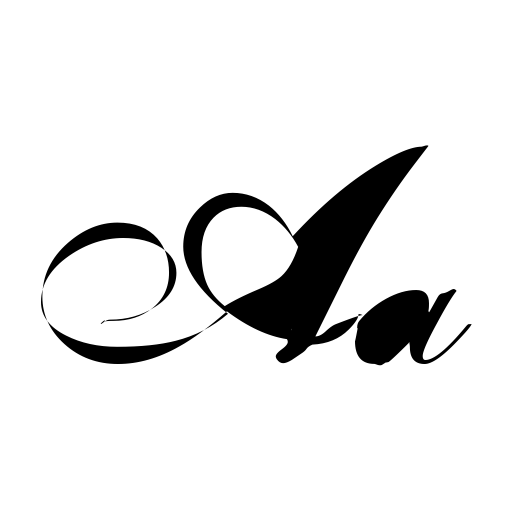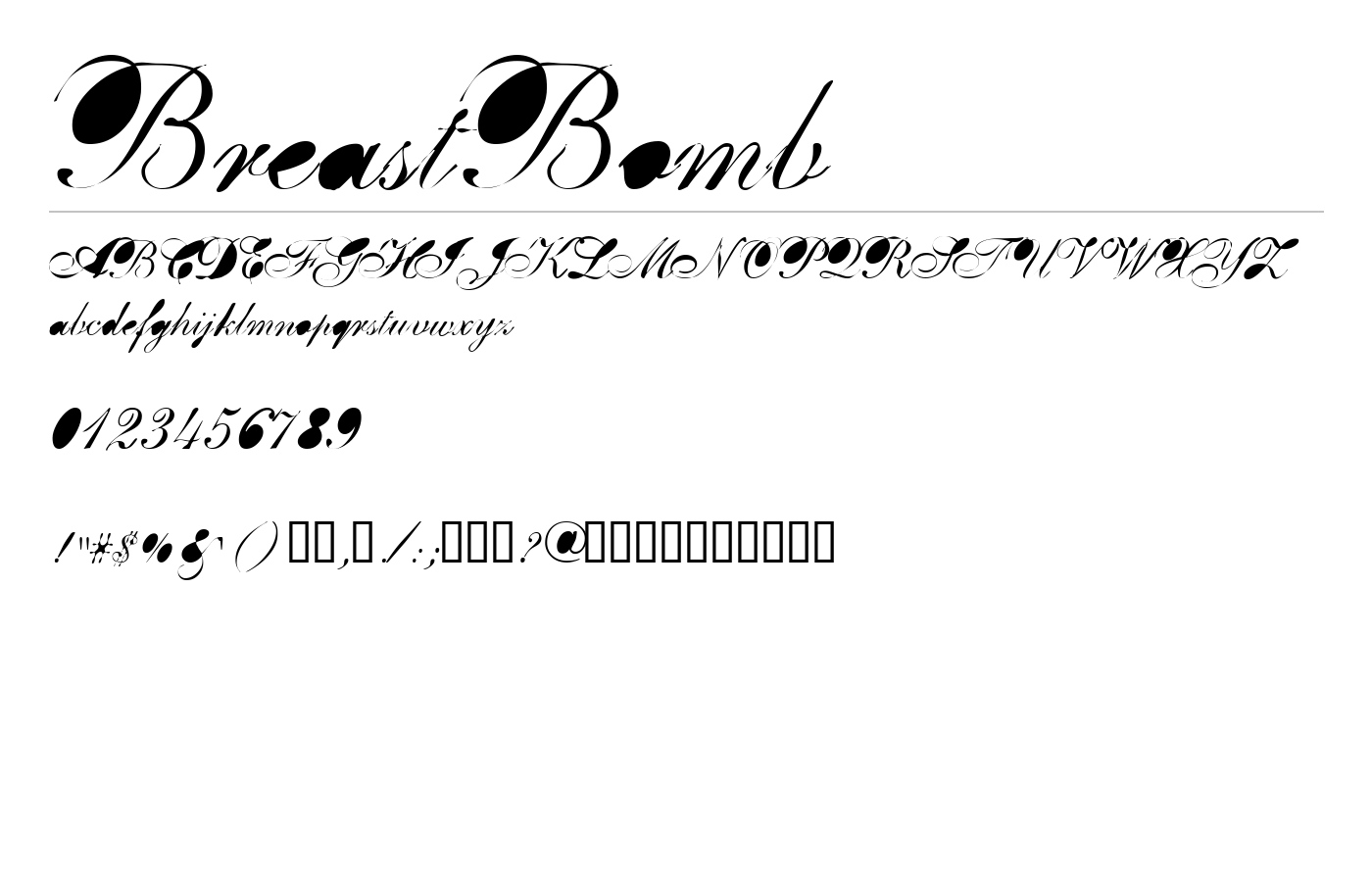
BreastBomb is an elegant and expressive script font characterized by high contrast strokes and dramatic, flowing curves. Its ornate, calligraphic style with bold, exaggerated thick and thin contrasts makes it perfect for luxurious branding, invitations, and headlines where a sophisticated, artistic flair is desired. This font stands out in decorative contexts, adding a sense of refinement and bold personality to any design.
BreastBomb Font
About BreastBomb Font